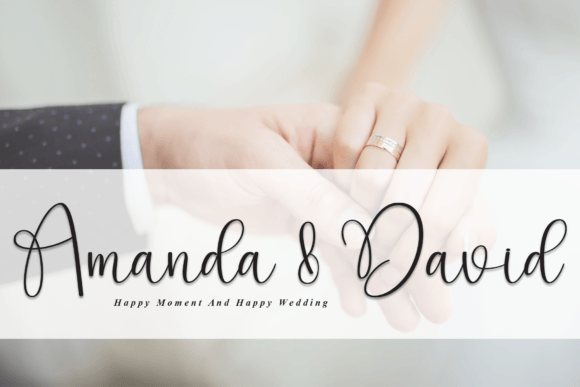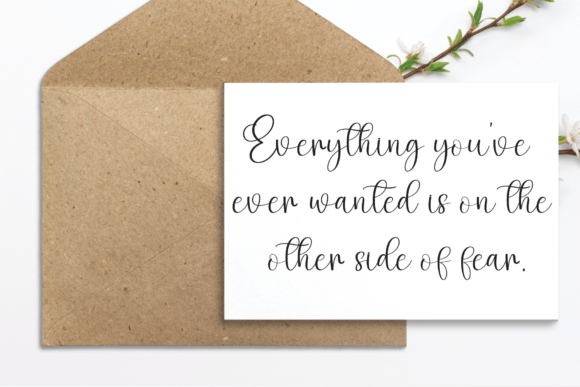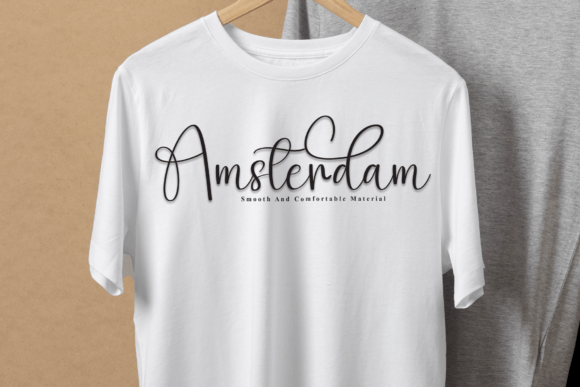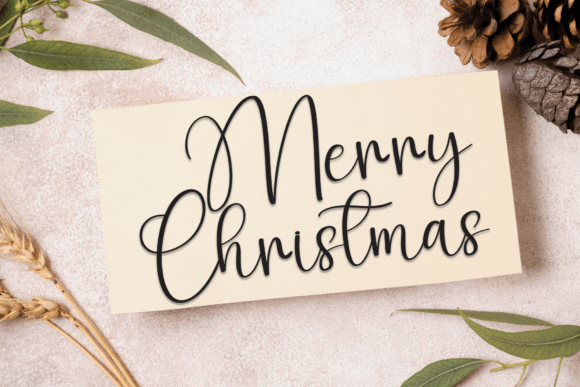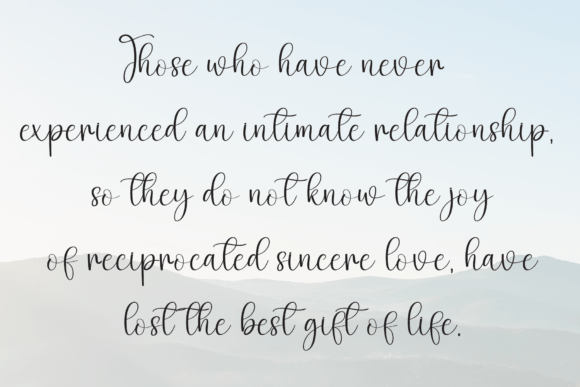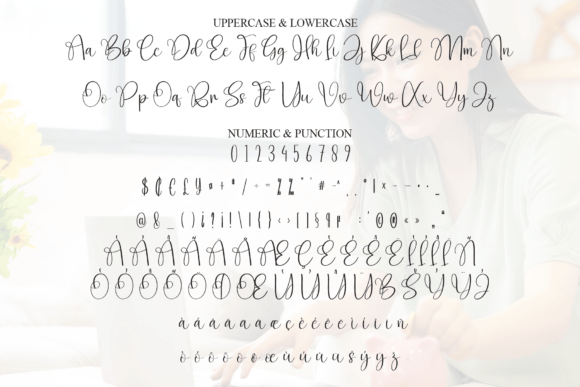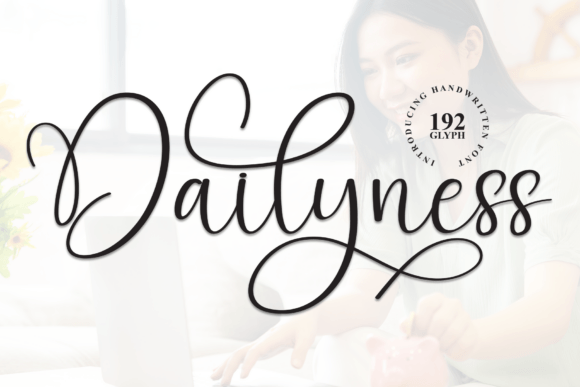
Dailyness Font: The Perfect Addition to Your Creative Projects
Are you looking for a font that can add a personal and friendly touch to your designs? Look no further than Dailyness Font. This fun and playful handwritten font is perfect for creative projects like greeting cards, posters, or invitations. Its smooth and natural style makes it a versatile choice for designers and crafters alike.
What is Dailyness Font?
Dailyness Font is a modern handwritten font that is designed to bring a sense of warmth and personality to your designs. Its smooth and flowing lines make it perfect for creating a wide range of creative projects, from formal invitations to casual greeting cards. The font is highly legible, making it easy to read and understand, even at smaller sizes.
Key Features of Dailyness Font
- Handwritten style: Dailyness Font has a natural, handwritten style that adds a personal touch to any design.
- Smooth and flowing lines: The font features smooth and flowing lines that make it perfect for creating a wide range of creative projects.
- Highly legible: Dailyness Font is highly legible, making it easy to read and understand, even at smaller sizes.
- Fun and playful: The font has a fun and playful personality that makes it perfect for creative projects like greeting cards, posters, or invitations.
Uses for Dailyness Font
Dailyness Font is a versatile font that can be used for a wide range of creative projects. Here are some ideas to get you started:
- Greeting cards: Dailyness Font is perfect for creating personalized greeting cards for special occasions like birthdays, weddings, or holidays.
- Posters: The font’s bold and playful style makes it perfect for creating eye-catching posters for events, promotions, or advertisements.
- Invitations: Dailyness Font is a great choice for creating formal or casual invitations for parties, weddings, or other special events.
- Social media graphics: The font’s fun and playful style makes it perfect for creating engaging social media graphics, like Facebook posts or Instagram stories.
Benefits of Using Dailyness Font
There are many benefits to using Dailyness Font in your creative projects. Here are a few:
- Adds a personal touch: Dailyness Font adds a personal and friendly touch to any design, making it perfect for projects where you want to connect with your audience.
- Increases engagement: The font’s fun and playful style can help increase engagement and interaction with your audience.
- Versatile: Dailyness Font is a versatile font that can be used for a wide range of creative projects, from formal to casual.
- Easy to read: The font is highly legible, making it easy to read and understand, even at smaller sizes.
Tips for Using Dailyness Font
Here are a few tips for using Dailyness Font in your creative projects:
- Use it with contrasting colors: Dailyness Font looks best when paired with contrasting colors that make it stand out.
- Experiment with different sizes: The font looks great at a wide range of sizes, from small to large.
- Pair it with other fonts: Dailyness Font can be paired with other fonts to create a unique and interesting look.
Dailyness Font is a fun and playful handwritten font that is perfect for creative projects like greeting cards, posters, or invitations. Its smooth and natural style makes it a versatile choice for designers and crafters alike. With its highly legible design and fun personality, Dailyness Font is sure to add a personal and friendly touch to any design.